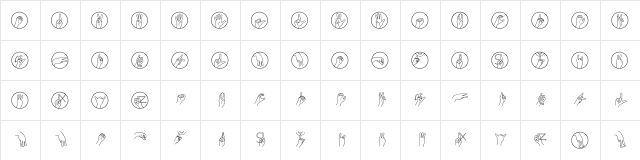
Alfabeto LSCH Regular
Design Context for Alfabeto LSCH Typeface
Alfabeto LSCH is a composed and adaptable typeface that performs quietly and consistently across a wide range of design contexts.